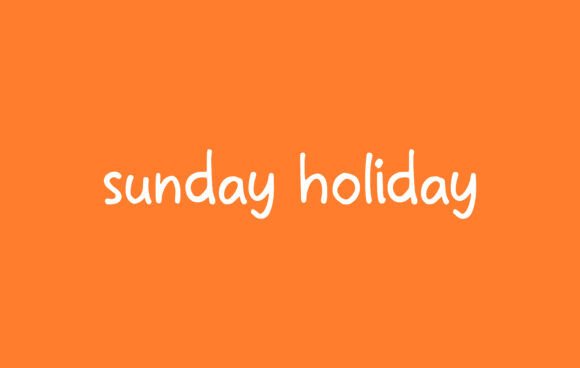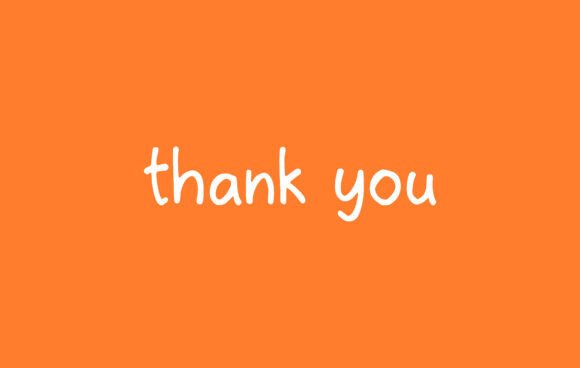
Bryce Font: Elevate Your Designs with a Romantic Handwritten Touch
In the world of typography, a well-crafted font can make all the difference in bringing your creative ideas to life. If you’re a designer or crafter looking for a unique and authentic handwritten font with a romantic touch, look no further than Bryce Font. This beautifully designed font is expertly crafted to capture the essence of elegance and sophistication, making it a true favorite among designers and crafters alike.
The Charm of Bryce Font
Bryce Font boasts a distinctive handwritten style that exudes warmth and personality. Its romantic touch is perfect for designs that require a touch of whimsy and charm. Whether you’re working on a magazine headline, social media post, branding project, wedding invitation, or card, this font is sure to impress. The legibility of Bryce Font is exceptional, making it suitable for use as both title and body text.
One of the standout features of Bryce Font is its versatility. Its elegant and refined appearance makes it an excellent choice for a wide range of design projects, including:
- Magazine headlines: Add a touch of sophistication to your magazine spreads with Bryce Font’s elegant and refined appearance.
- Social media: Elevate your social media posts with a font that’s sure to grab attention and leave a lasting impression.
- Branding: Establish your brand’s identity with a unique and memorable font that reflects your values and personality.
- Wedding invitations: Make your wedding invitations truly special with a font that exudes romance and elegance.
- Cards: Whether it’s a birthday, anniversary, or holiday card, Bryce Font is the perfect choice for adding a personal touch.
Why Choose Bryce Font?
So, what sets Bryce Font apart from other fonts on the market? Here are just a few reasons why designers and crafters are falling in love with this beautiful font:
- Authentic handwritten style: Bryce Font’s unique and authentic handwritten style gives it a personal touch that’s hard to replicate with generic fonts.
- Romantic touch: The font’s romantic touch makes it perfect for designs that require a touch of whimsy and charm.
- Legibility: Bryce Font is incredibly legible, making it suitable for use as both title and body text.
- Versatility: The font’s versatility makes it an excellent choice for a wide range of design projects.
Tips for Using Bryce Font
To get the most out of Bryce Font, here are a few tips to keep in mind:
- Experiment with font sizes: Bryce Font looks great in a variety of font sizes, from large headlines to smaller body text.
- Play with colors: The font’s elegant appearance makes it suitable for use with a wide range of colors and backgrounds.
- Mix and match with other fonts: Bryce Font pairs well with other fonts, making it easy to create unique and interesting typography combinations.
In conclusion, Bryce Font is a beautiful and authentic handwritten font with a romantic touch that’s sure to elevate your designs to the next level. Its versatility, legibility, and elegant appearance make it an excellent choice for a wide range of design projects. Whether you’re a designer or crafter, Bryce Font is a must-have font that will help you bring your creative ideas to life.